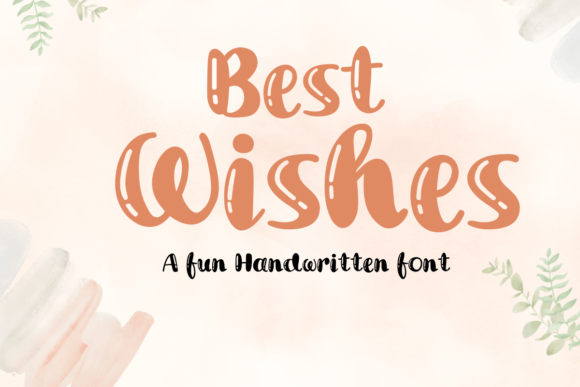
Looking for the perfect font to elevate your designs and create a lasting impression? Look no further than Best Wishes Font, a delightful display font designed by GetjiArts.
Best Wishes Font is more than just a font – it's a visual representation of warmth, charm, and personality. With its playful handwritten style, this font brings a touch of informality to any design, making it the ideal choice for those looking to add a friendly and approachable vibe.
Imagine sending out a greeting card or invitation that instantly captivates your audience. Best Wishes Font does just that, with its whimsical strokes that dance across the page, leaving a lasting impact. Whether you're designing for a birthday party, a wedding, or any other celebration, this font ensures that your message is conveyed with a sense of joy and well-wishing.
But it doesn't stop there – Best Wishes Font is also perfect for creative projects that demand attention. From logo designs to social media graphics and everything in between, this font will make your designs stand out from the crowd. Its unique style sets it apart, allowing you to create eye-catching visuals that leave a lasting impression on your audience.
One of the best things about Best Wishes Font is its versatility. While it's perfect for adding a touch of playfulness to your designs, it can also be used to create a sense of elegance and sophistication. Whether you're designing a resume, a portfolio, or any other professional document, this font will ensure that your work is presented in a visually stunning and captivating way.
When it comes to choosing a font for your designs, you want something that not only looks great but also evokes emotion. Best Wishes Font does just that, with its ability to convey warmth, friendliness, and celebration. It's the perfect choice for anyone looking to create designs that leave a lasting impact and evoke a sense of well-wishing.